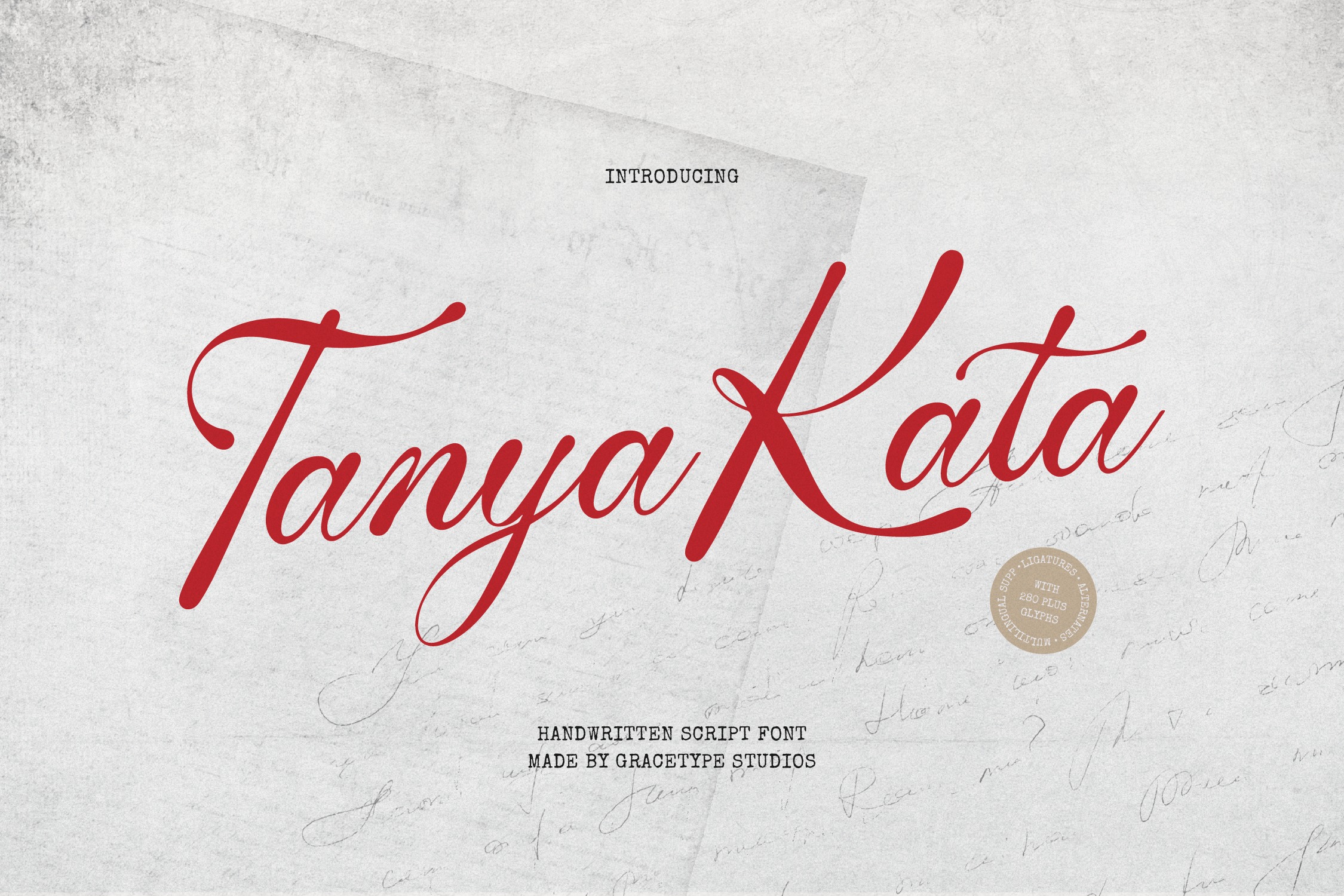
Tanya Kata – Elegant Script Font
Tanya Kata – Elegant Script Font is a stylish typeface that enhances visual appeal and works effortlessly in many design contexts. Tanya Kata | Handwritten Script Font, from Gracetypestudio, suitable for any projects such as: logos, branding projects, homeware designs, product packaging, mugs, quotes, posters, shopping bags, t-shirts, book covers, name card, invitation cards, greeting cards, label, photography, watermark, special events, and all your other lovely projects that need a Script taste.